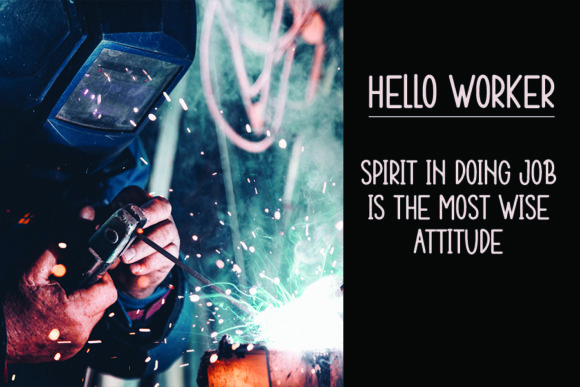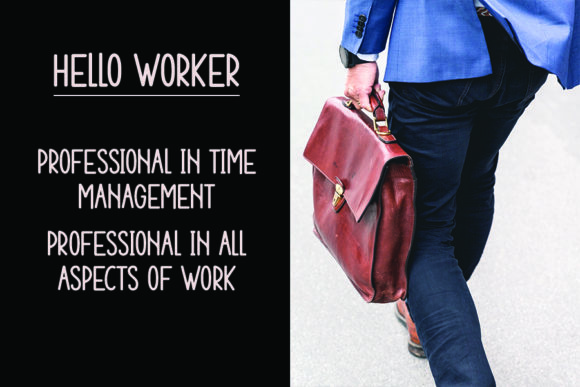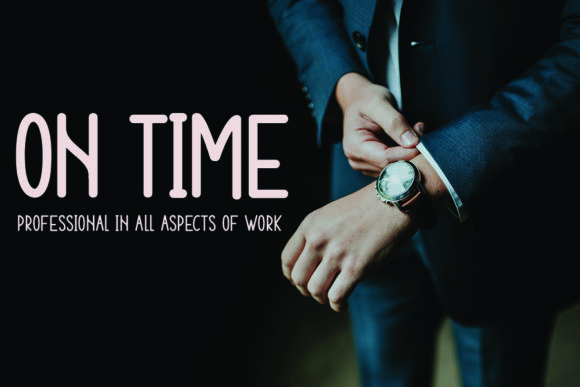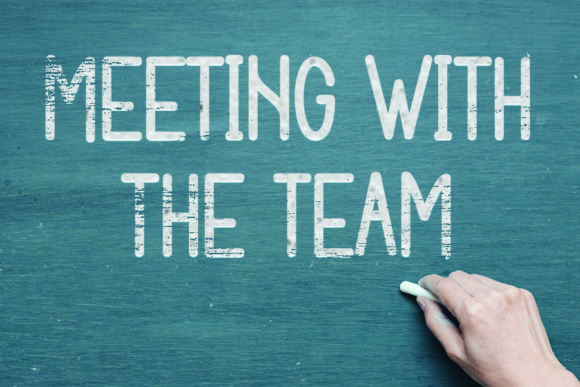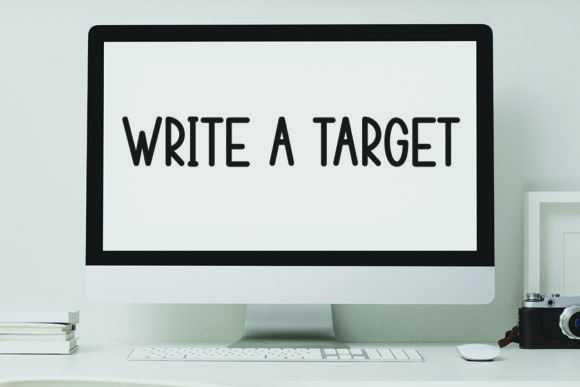
Introduction to Hello Worker Font
Do you ever have those moments when you’re working on a creative project and you just can’t seem to find the perfect font to bring your idea to life? You browse through endless options, but nothing seems to capture the essence of your vision. That’s exactly what happened to me when I stumbled upon the Hello Worker Font. Its simple yet elegant design immediately caught my attention, and I knew I had to learn more about it.
As a designer, I can attest to the importance of having high-quality design resources at your fingertips. The Hello Worker Font is a valuable addition to any creative’s toolkit, offering a clean and modern aesthetic that’s perfect for a wide range of projects. And the best part? It’s available for a free download, making it an accessible design resource for designers of all levels.
With its transparent background and versatile design, the Hello Worker Font is an excellent choice for designers looking to add a touch of sophistication to their creative ideas. Whether you’re working on a branding project, a logo design, or simply need a font to spice up your social media graphics, the Hello Worker Font is sure to make your projects stand out.
Key Features of Hello Worker Font
- High-quality design: Hello Worker Font is a unique and stylish design resource ideal for creative projects.
- Transparent background: The transparent background of Hello Worker Font allows for seamless integration with any design.
- Medium to high resolution: This font is suitable for both web and print designs, with a resolution of 300 DPI.
- Unique and creative style: Hello Worker Font features a distinctive and modern design, perfect for adding a touch of personality to any project.
Honest Review: Hello Worker Font
Here’s what I like about the Hello Worker Font:
- ✨ It’s a high-quality font with a modern, minimalist design.
- ✨ It’s highly versatile and can be used for a variety of design projects, from logos to presentations.
- ✨ It comes with a transparent background, making it easy to customize and use in different design applications.
- ⚠️ The font family is relatively small, which may limit its use in certain design contexts.
- ⚠️ Some characters may not be fully supported in all operating systems, which could lead to compatibility issues.
Overall, I’m impressed with the Hello Worker Font. It’s a great design resource that’s perfect for creative projects. While it may have a few limitations, the benefits far outweigh the drawbacks. If you’re looking for a high-quality, free font, I’d definitely recommend checking out the Hello Worker Font.
Use the Hello Worker Font with a transparent background to create a modern and sleek design. Experiment with different font sizes and styles to add visual interest to your design.
The Hello Worker Font is perfect for creative projects such as social media graphics, presentations, logos, and more. It’s also great for use in business cards, flyers, and other marketing materials.
Does the Hello Worker Font have a transparent background?
Yes, the Hello Worker Font features a transparent background, making it easy to use in designs with complex backgrounds or layered compositions. This adds flexibility and creativity to your design projects.